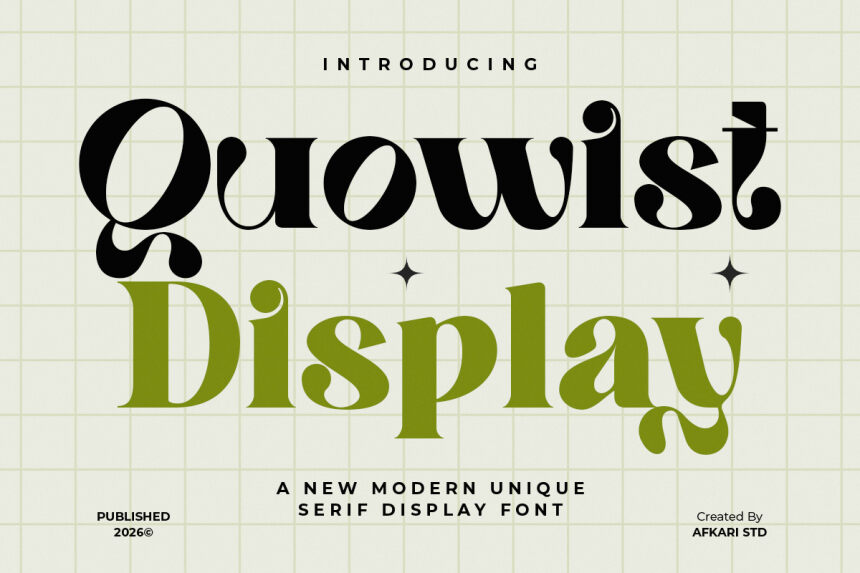
Quowist Display by Afkari Studio is a free retro display serif with a soft, fashion-led swing. The letters lean on bold contrast and rounded, droplet-like finishes, giving the font a lush, almost 1970s editorial mood while the wide curves keep it playful rather than severe.
It fits branding, boutique packaging, magazine covers, poster headlines, and title cards where you want a free font with a stylized, feminine pull. Use it when a word or short line needs to feel dressed up fast, because those swelling curves and curling details do most of the work on their own.